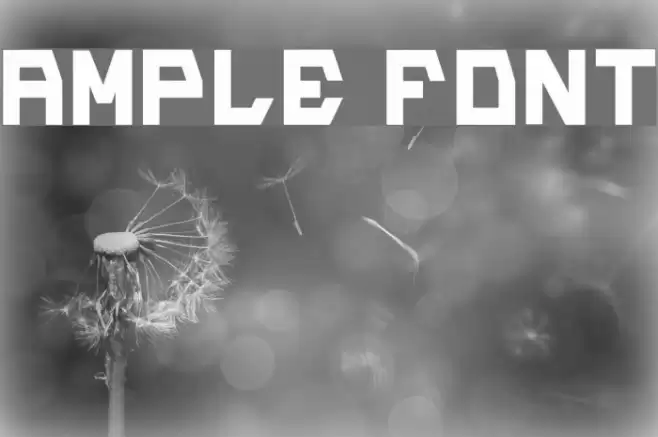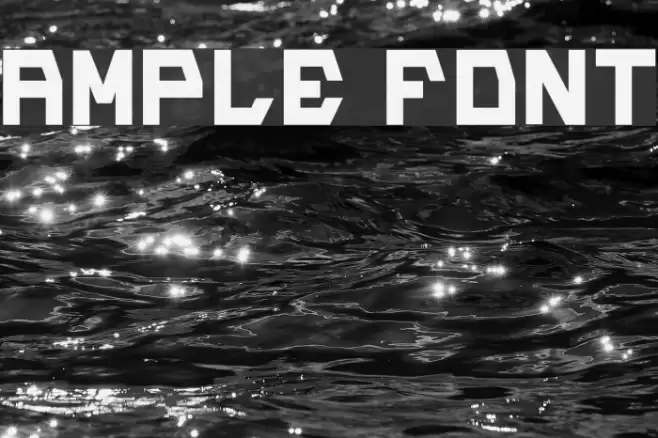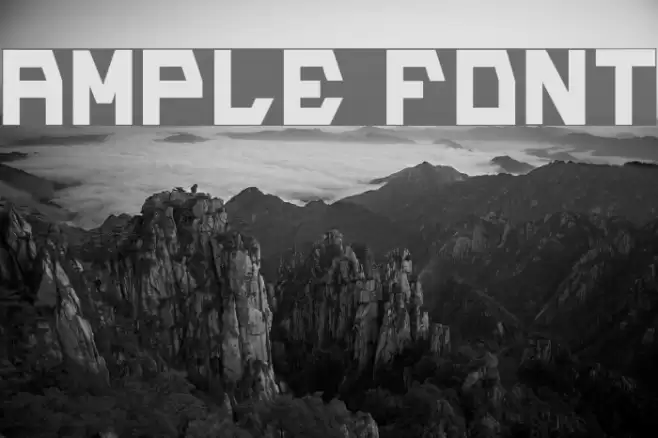
Ample Font
Ample Description
This font features a bold and geometric design with strong, angular lines and a futuristic aesthetic. Each character is crafted with precision, showcasing a unique blend of sharp edges and clean cuts. The uppercase letters are particularly striking, with a uniform height and width that create a sense of balance and symmetry. The font's distinct style is both modern and edgy, making it ideal for projects that require a bold statement. Its design is reminiscent of digital or technological themes, with a touch of industrial influence. The characters are evenly spaced, ensuring readability while maintaining a compact appearance. This font is perfect for capturing attention and conveying a sense of innovation and forward-thinking.
A bold, geometric font with a futuristic and edgy design from Uncategorized fonts.
- Proposed Projects: Ideal for technology branding, video game titles, sci-fi posters, and modern advertising campaigns.